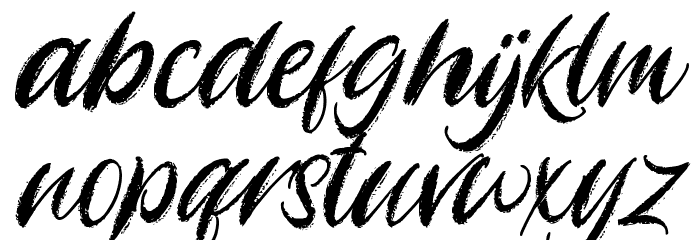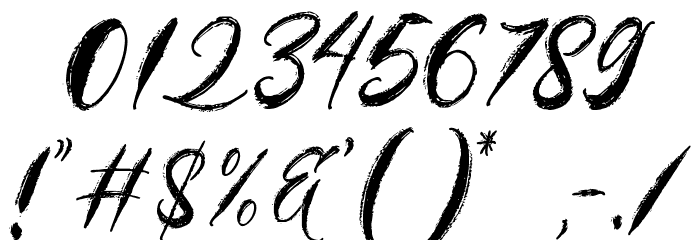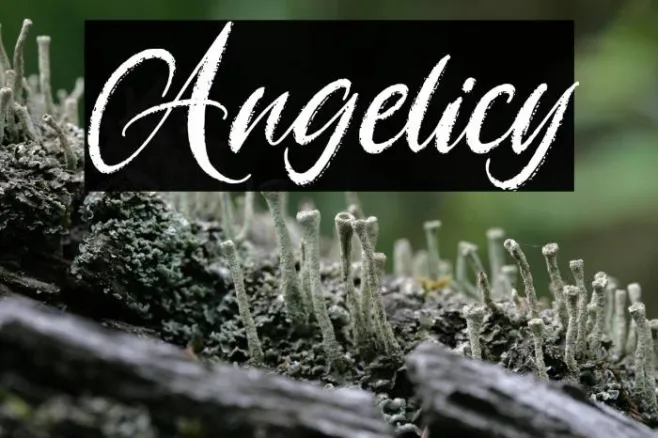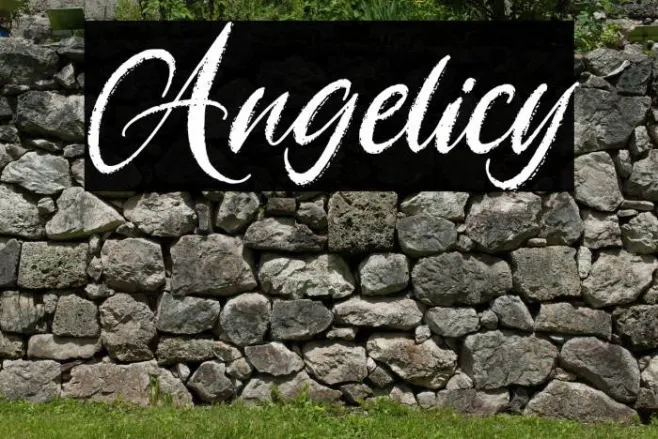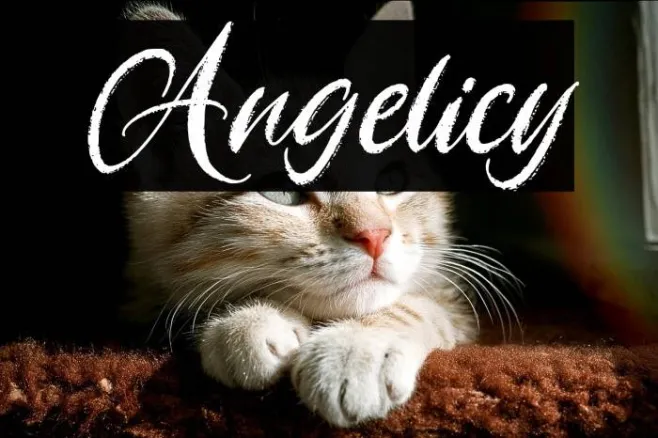
Angelicy Font
This font exudes a dynamic and expressive style, characterized by its fluid, cursive script. The strokes are bold and textured, giving it a hand-painted appearance that adds a touch of artistic flair. The uppercase letters are elegantly elongated, while the lowercase letters maintain a consistent flow, enhancing readability. The numerals and special characters are crafted with the same attention to detail, ensuring a cohesive look across all text elements. This font's unique brush-like texture and lively movement make it stand out, offering a sense of creativity and spontaneity.
A bold, textured cursive script with a hand-painted, artistic style.